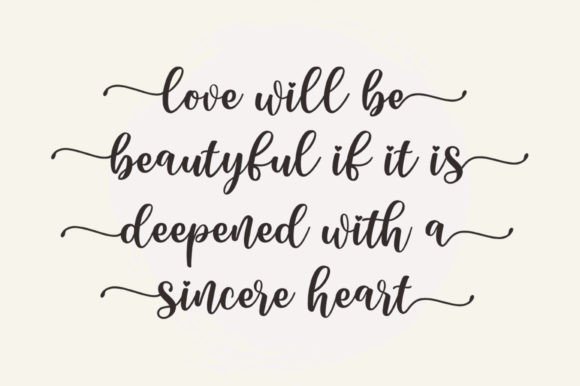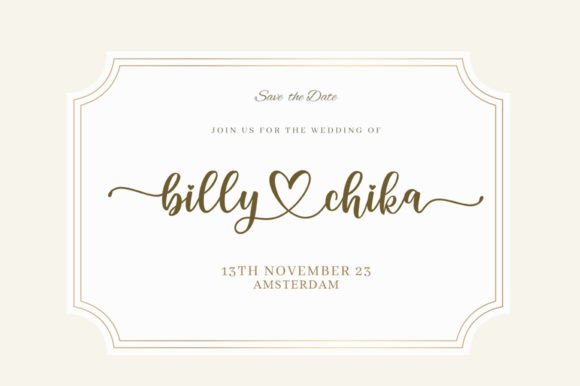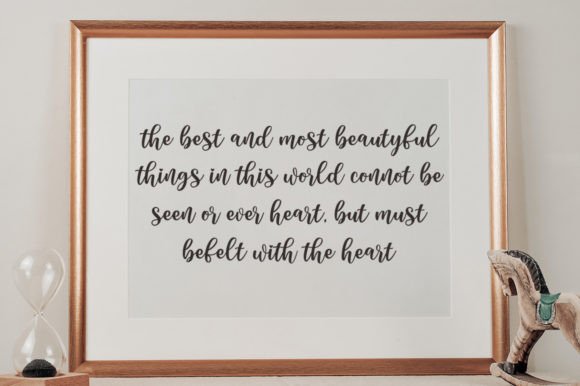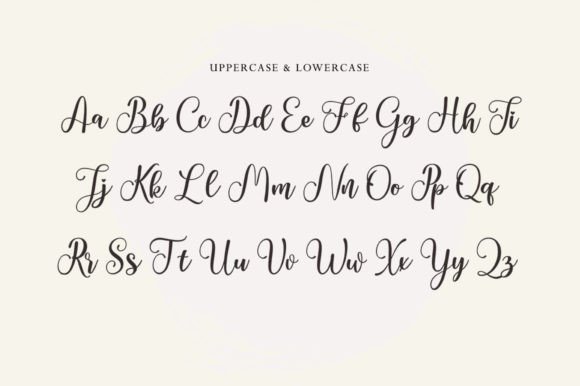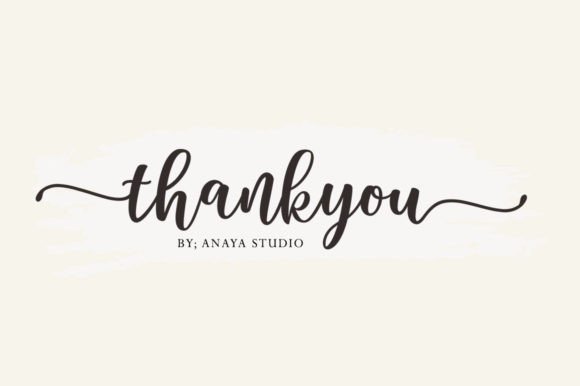
Discover the Elegance of Chika Font: A Cursive Handwritten Marvel
In the vast universe of typography, few fonts manage to capture the essence of elegance and charm as effortlessly as the Chika Font. This attractive, cursive handwritten font has been making waves in the design community, and for good reason. Its gentle, flowing lines and sophisticated appeal make it an ideal choice for a wide range of design projects. Whether you’re a seasoned designer or a crafting enthusiast, Chika Font is sure to add a fascinating flair to your creations.
The Unique Charm of Chika Font
What sets Chika Font apart from other fonts in its category is its unique blend of simplicity and sophistication. The font’s cursive, handwritten style exudes a sense of warmth and approachability, making it perfect for projects that require a personal touch. At the same time, its elegant lines and balanced proportions ensure that it remains highly legible, even at smaller sizes.
One of the standout features of Chika Font is its PUA (Private Use Area) encoding. This means that the font comes with a range of delightful glyphs and swashes that can be accessed effortlessly, allowing designers to add an extra layer of creativity and flair to their work. Whether you’re looking to add a touch of whimsy to a children’s book or create an elegant logo for a luxury brand, Chika Font’s extensive character set has got you covered.
So, what can you create with Chika Font? The possibilities are virtually endless! This versatile font can be used for a wide range of design projects, including:
- Branding and Logo Design: Create a lasting impression with a custom logo that showcases your brand’s personality and style.
- Stationery and Invitations: Add a touch of elegance to your wedding invitations, business cards, and letterheads.
- Packaging Design: Stand out on store shelves with eye-catching packaging that features Chika Font’s unique charm.
- Digital Design: Use Chika Font to create stunning social media graphics, website headers, and more.
- Crafting and DIY Projects: Add a personal touch to your handmade crafts, such as journals, planners, and scrapbooks.
Why Choose Chika Font?
With so many fonts available, why choose Chika Font for your next project? Here are just a few compelling reasons:
- Unique and Eye-Catching: Chika Font’s distinctive style is sure to grab attention and leave a lasting impression.
- Elegant and Sophisticated: Add a touch of luxury and refinement to your designs with Chika Font’s elegant lines and balanced proportions.
- Highly Versatile: Use Chika Font for a wide range of design projects, from branding and packaging to digital design and crafting.
- Easy to Use: With PUA encoding, accessing Chika Font’s glyphs and swashes is a breeze, making it easy to add creative flourishes to your designs.